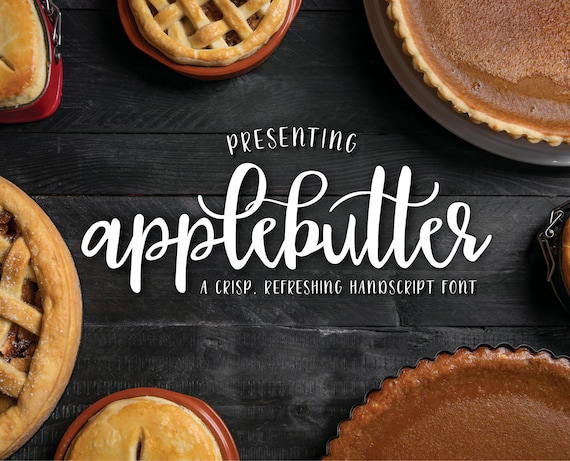
Introducing Applebutter! A hand-lettered whimsical font perfect for invitations, beautiful art prints, and anything creative. Applebutter includes basic Latin and provides multilingual support with accented characters for Western European users. This hand-drawn script font is perfect for crafts from summertime to Christmastime. Applebutter is provided as an OTF (open type) as well as a TTF (true type). Applebutter contains all script lowercase and is paired with a non-script version for all uppercase letters.
Applebutter is packed with extras to give you many options for your projects. It includes 31 standard ligatures and 15 stylistic alternates. All can be previewed in the preview images. Please make sure you take a look at all of the preview images to give you an idea of how this font works together!